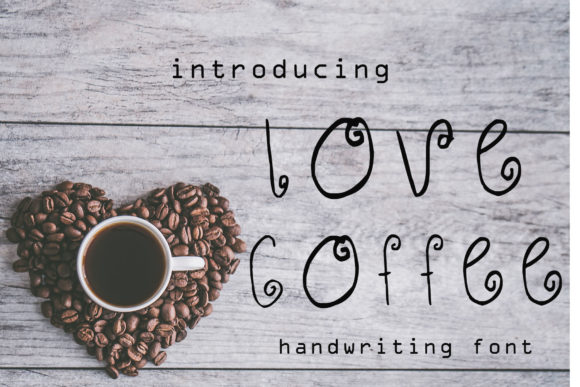
Love Coffee Font
Get ready to indulge in a cup of typographic delight with Love Coffee Font! It's a script font that's bold, playful, and bursting with personality.
Love Coffee Font is the perfect choice for adding a touch of whimsy and charm to your designs. Its quirky and slightly nervous style is sure to make any text stand out and capture the attention of your readers. It's perfect for headlines, logos, branding, invitations, social media posts, and any other project where you want to make a statement.
Immerse yourself in the world of Love Coffee Font with its captivating curves and playful lines. Let your imagination soar as you explore the endless possibilities it offers. From elegant and sophisticated to fun and flirty, Love Coffee Font adapts effortlessly to any style or design concept.
Its versatility shines through whether you're designing for print or digital media. Experience the beauty of Love Coffee Font on posters, flyers, brochures, websites, social media graphics, and digital marketing materials. It's the perfect font to add a touch of personality and uniqueness to your projects.
Don't miss out on the opportunity to elevate your designs with Love Coffee Font. It's crafted with precision and care, ensuring that every letterform is aesthetically pleasing and visually appealing. Discover the joy of creating designs that resonate with your audience and leave a lasting impression.
Love Coffee Font isn't just a font; it's an experience. Indulge in its playful spirit and let your creativity bloom. Embrace the power of typography and transform your designs into works of art. Download Love Coffee Font today and unlock a world of creative possibilities!